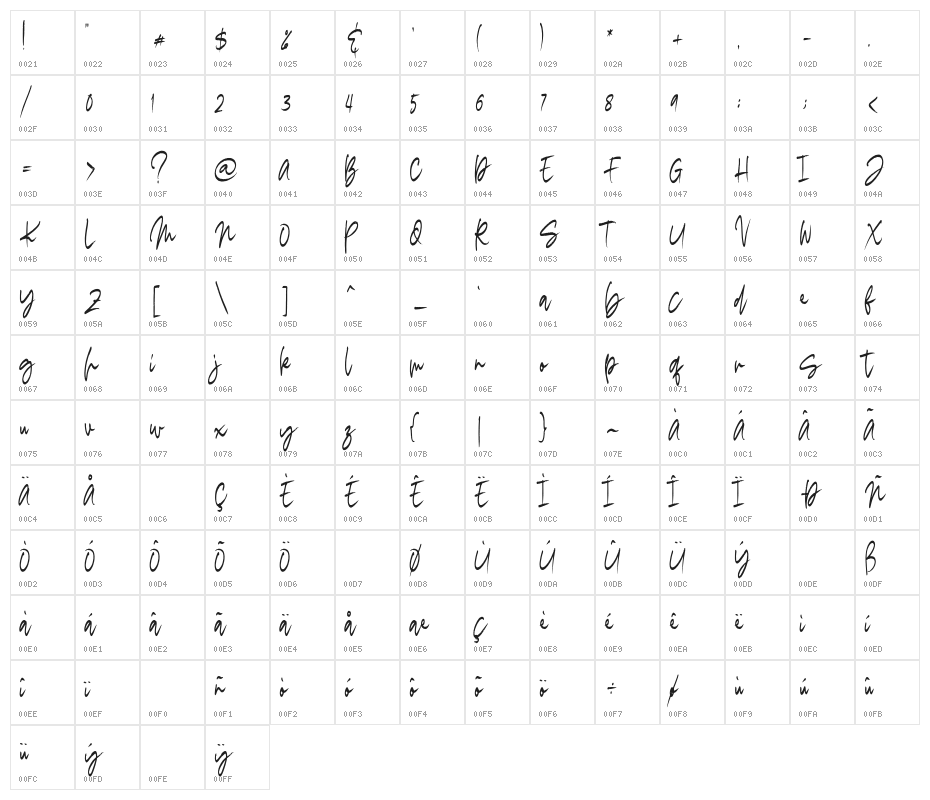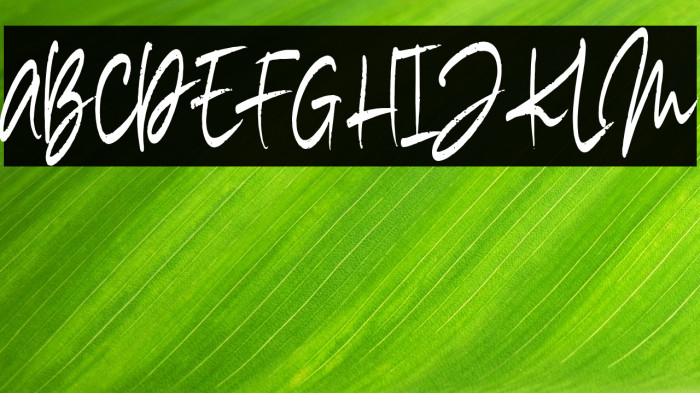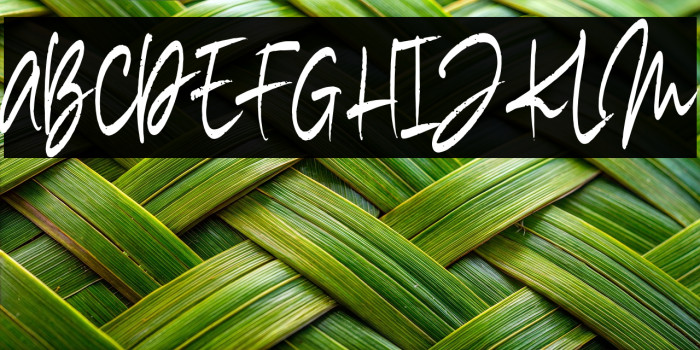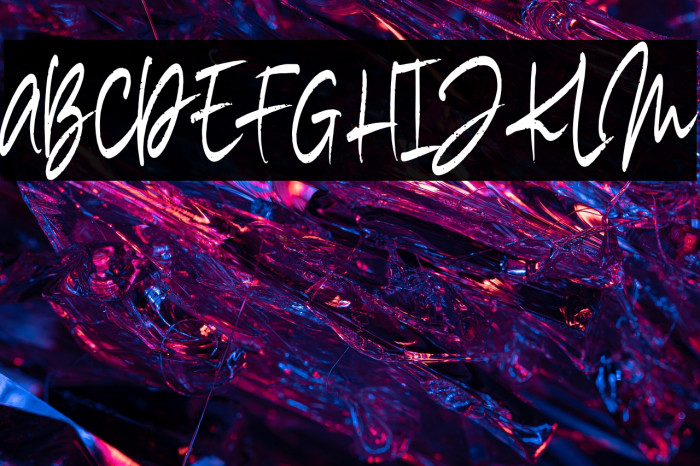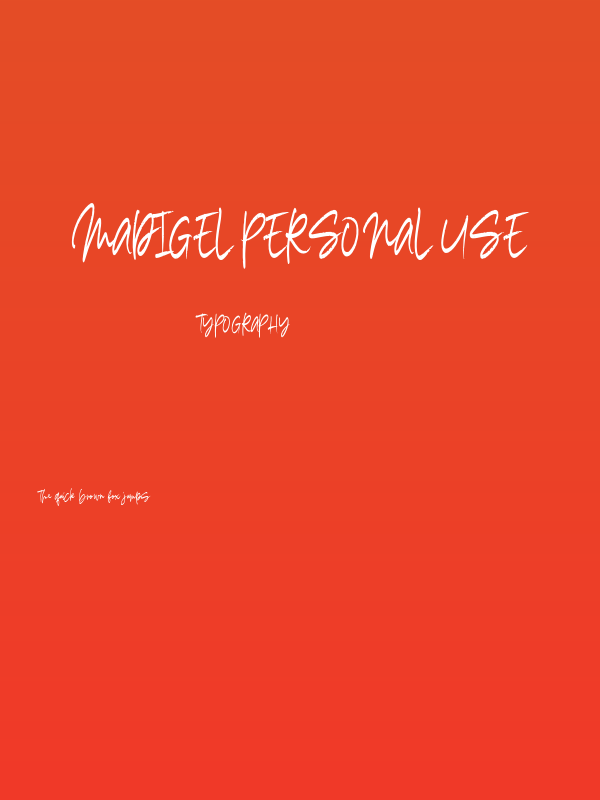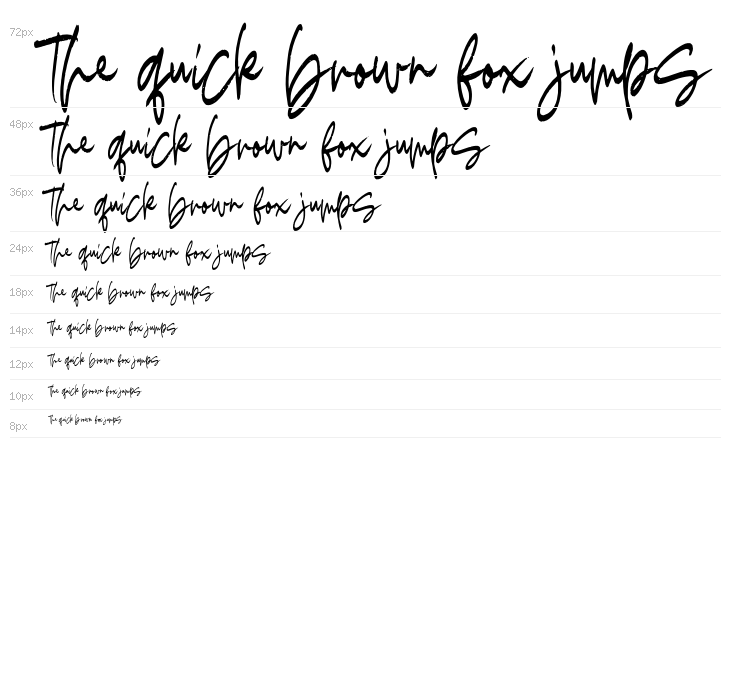
Madigel Personal Use Font
Madigel Personal Use Description
This font features a dynamic and expressive handwritten style, characterized by its fluid and natural strokes. The letters are slightly slanted, giving a sense of motion and energy. The uppercase and lowercase characters are well-balanced, with a playful yet sophisticated appearance. The numbers and special characters maintain the same lively aesthetic, making the font versatile for various applications. The strokes vary in thickness, adding a touch of authenticity and personal flair. Overall, this font exudes a casual yet elegant vibe, perfect for creative projects that require a personal touch.
| Overall Style | Casual, Elegant |
| Use Case | Logos, Invitations, Social Media Graphics |
| Proposed Projects | Ideal for personal branding, invitations, greeting cards, and creative social media graphics. |